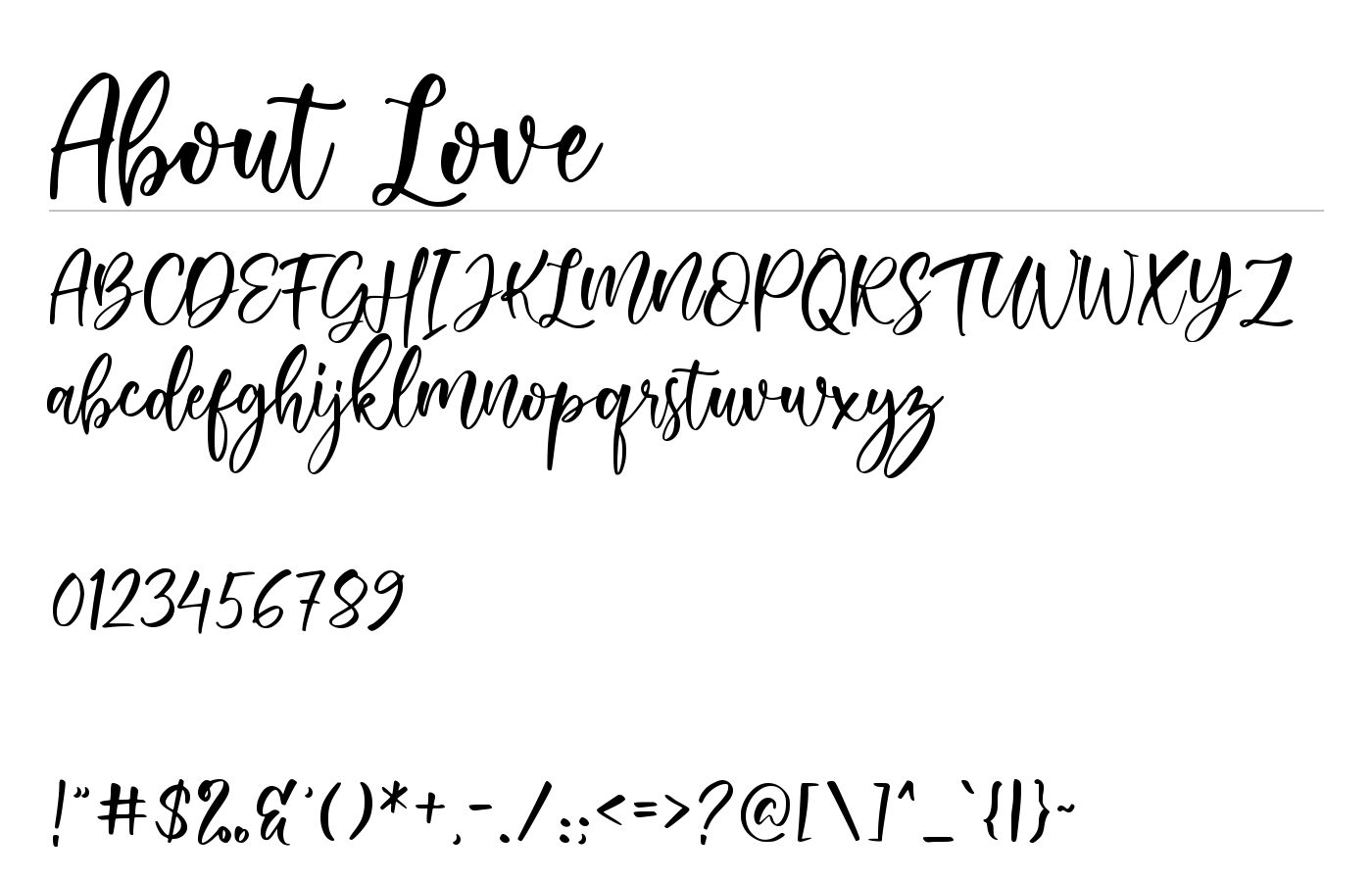
About Love Font is a lively and elegant script typeface with a handwritten feel, featuring smooth, flowing strokes that combine both thin and moderately thick lines for a natural and inviting look. Its tall x-height and slightly condensed letterforms make it highly readable while maintaining a charming, personal style, perfect for romantic, feminine, or creative branding, invitations, and headlines that need a warm, friendly touch. This font works beautifully in contexts where a sense of intimacy and handcrafted elegance is desired, such as wedding stationery, lifestyle blogs, and boutique packaging.
About Love Font